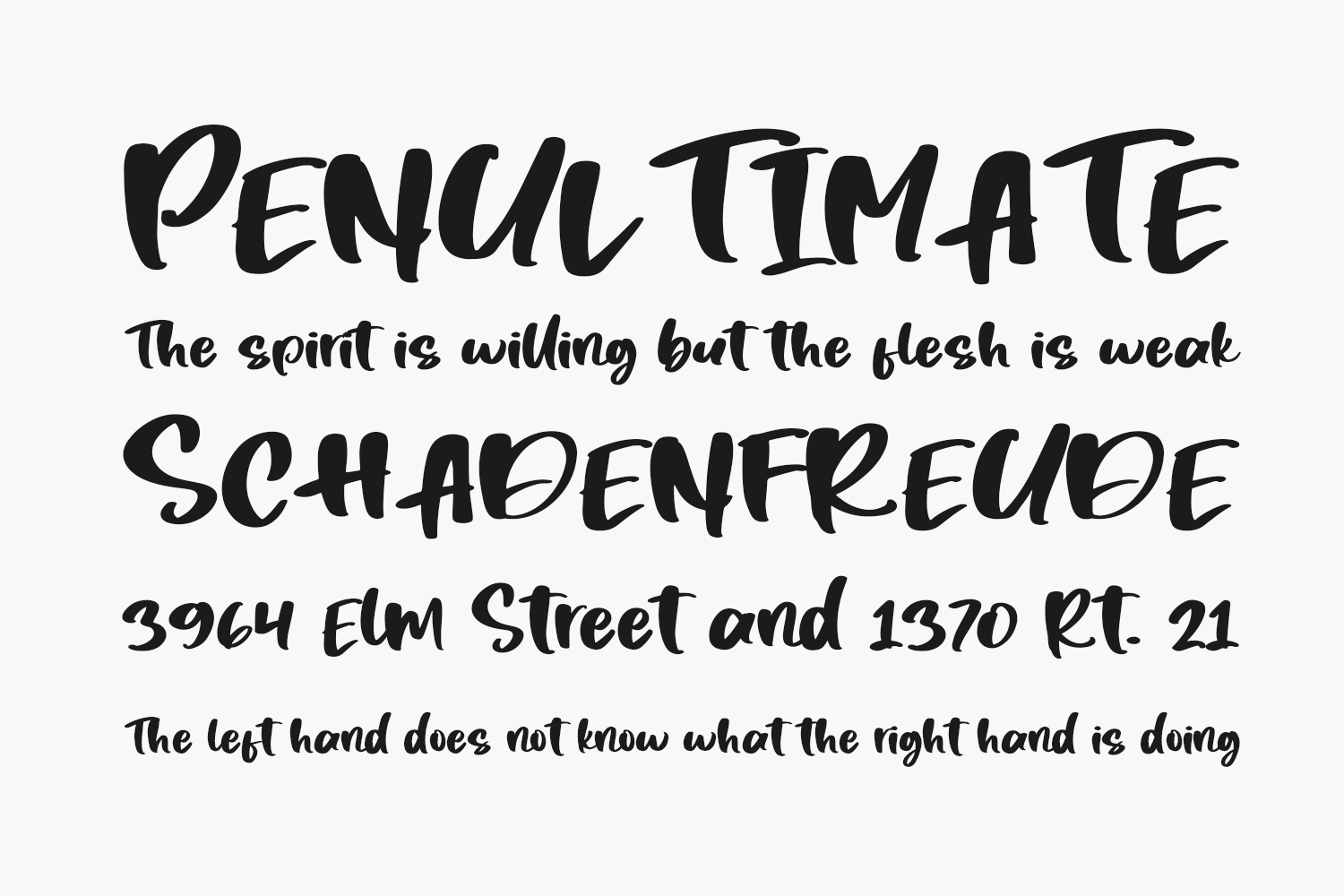
Smiley Free Font is a chic and trendy handwritten font. Fall for its ravishing style and use it to create gorgeous wedding invitations, beautiful stationary art, eye-catching social media posts, and much more. Smiley Free Font was designed by alphArtype and is free for personal use only. Please purchase the full version for commercial use.